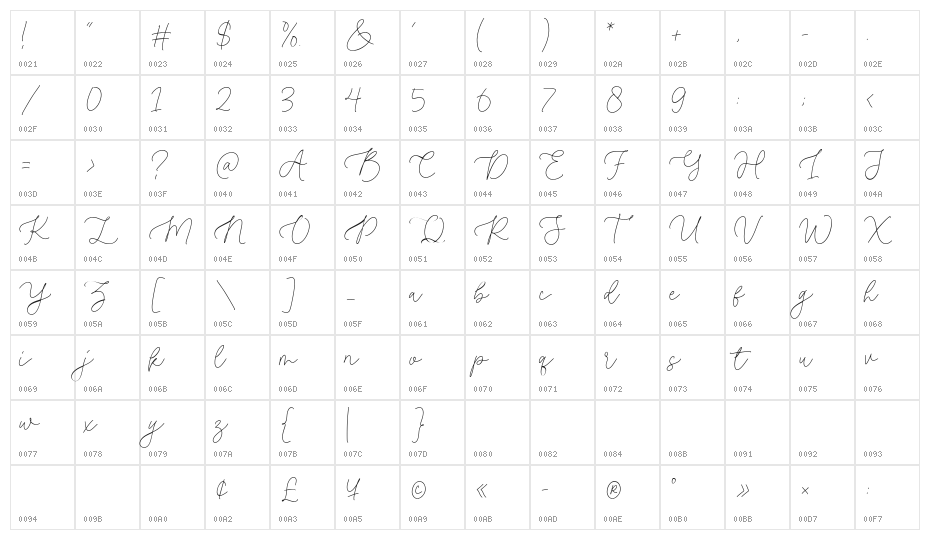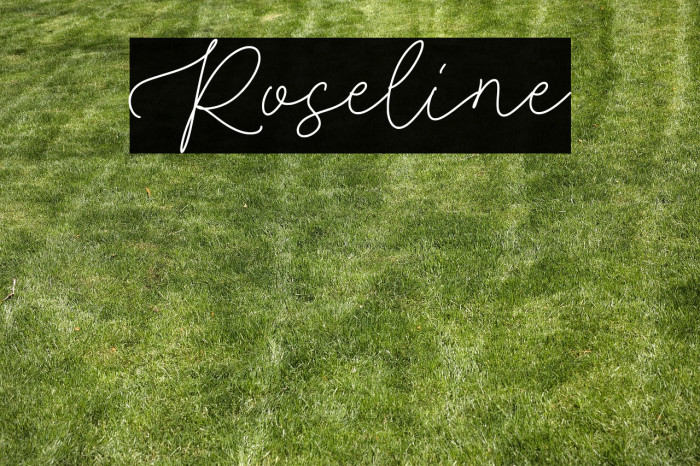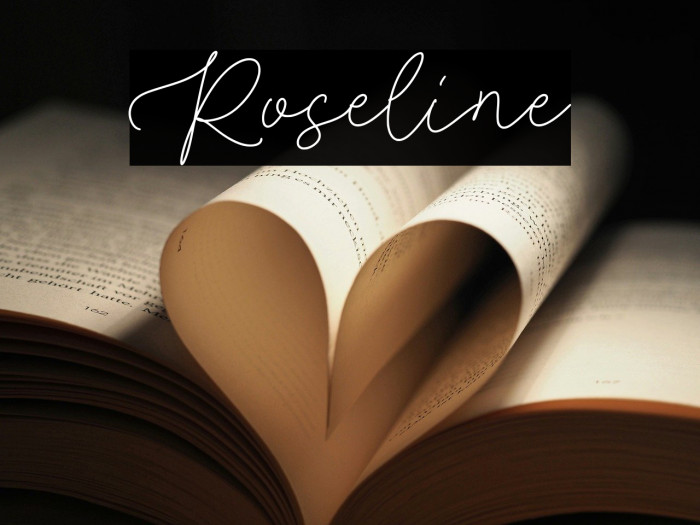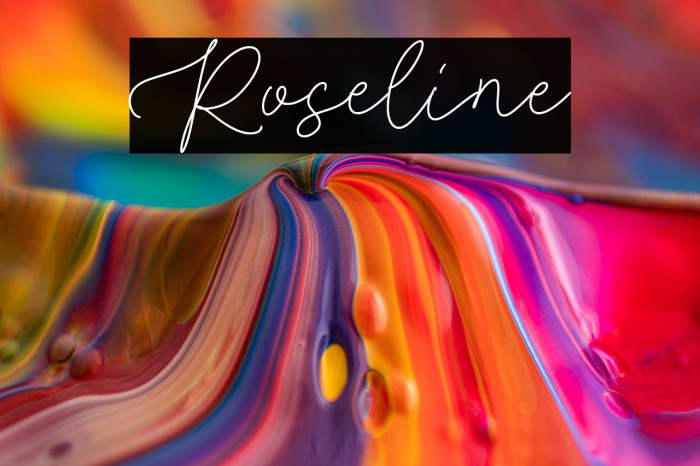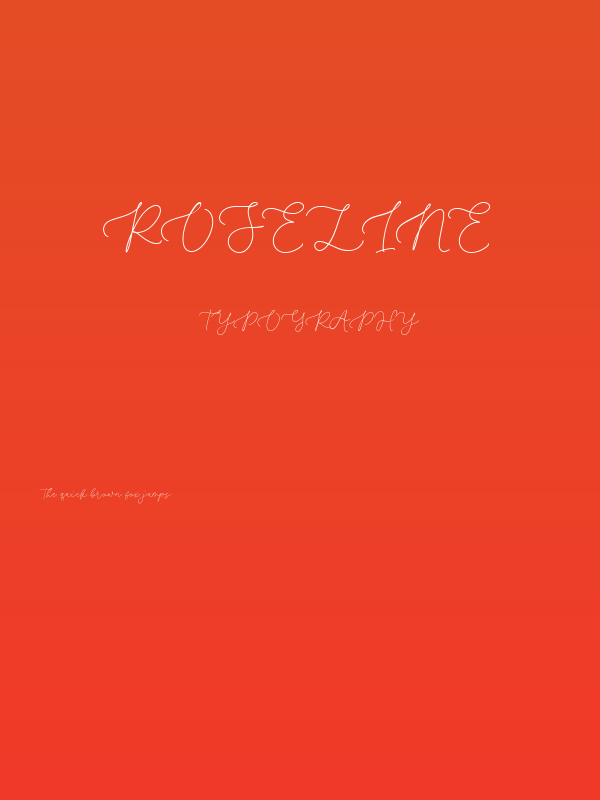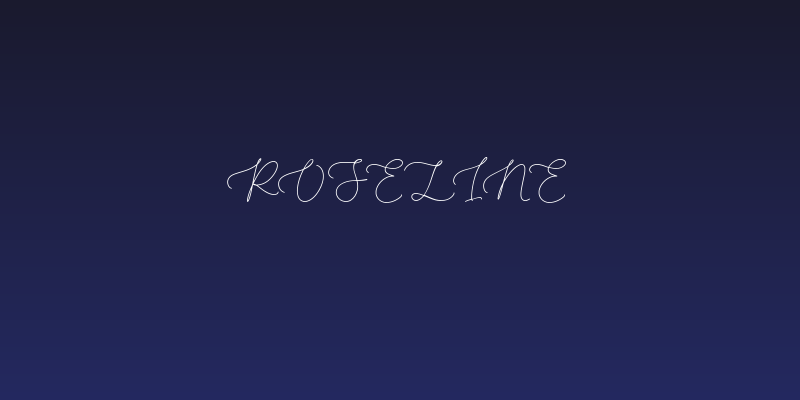
Roseline Font
Roseline Description
This font exudes elegance and sophistication with its flowing, cursive style. Each letter is crafted with a delicate touch, featuring smooth curves and graceful loops that give it a handwritten appearance. The uppercase letters maintain a consistent height, while the lowercase letters exhibit a charming variation in size, adding to the font's organic feel. The numerals are equally refined, with a slight slant that complements the overall aesthetic. Special characters are seamlessly integrated, maintaining the font's cohesive look. This font is perfect for projects that require a personal, elegant touch.
| Overall Style | Elegant, Handwritten |
| Use Case | Logos, Invitations, Personal Branding |
| Proposed Projects | Ideal for wedding invitations, personal branding, greeting cards, and elegant stationery. |